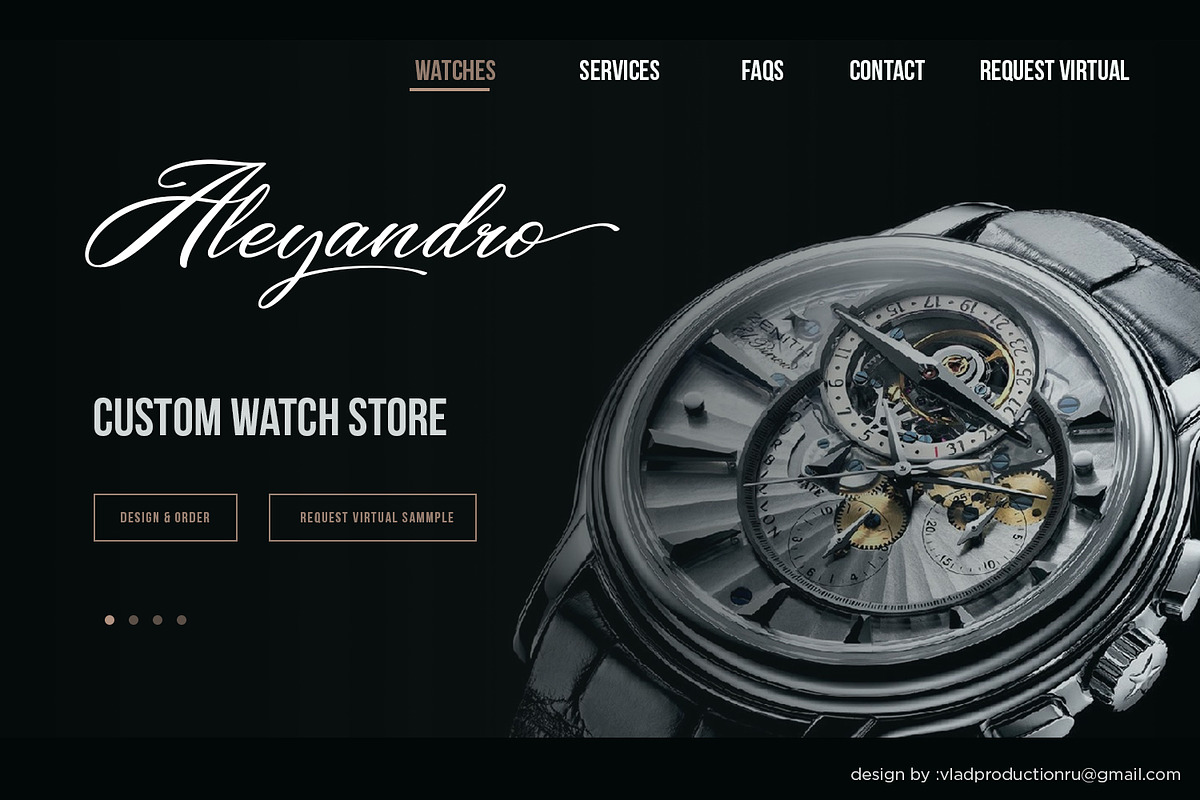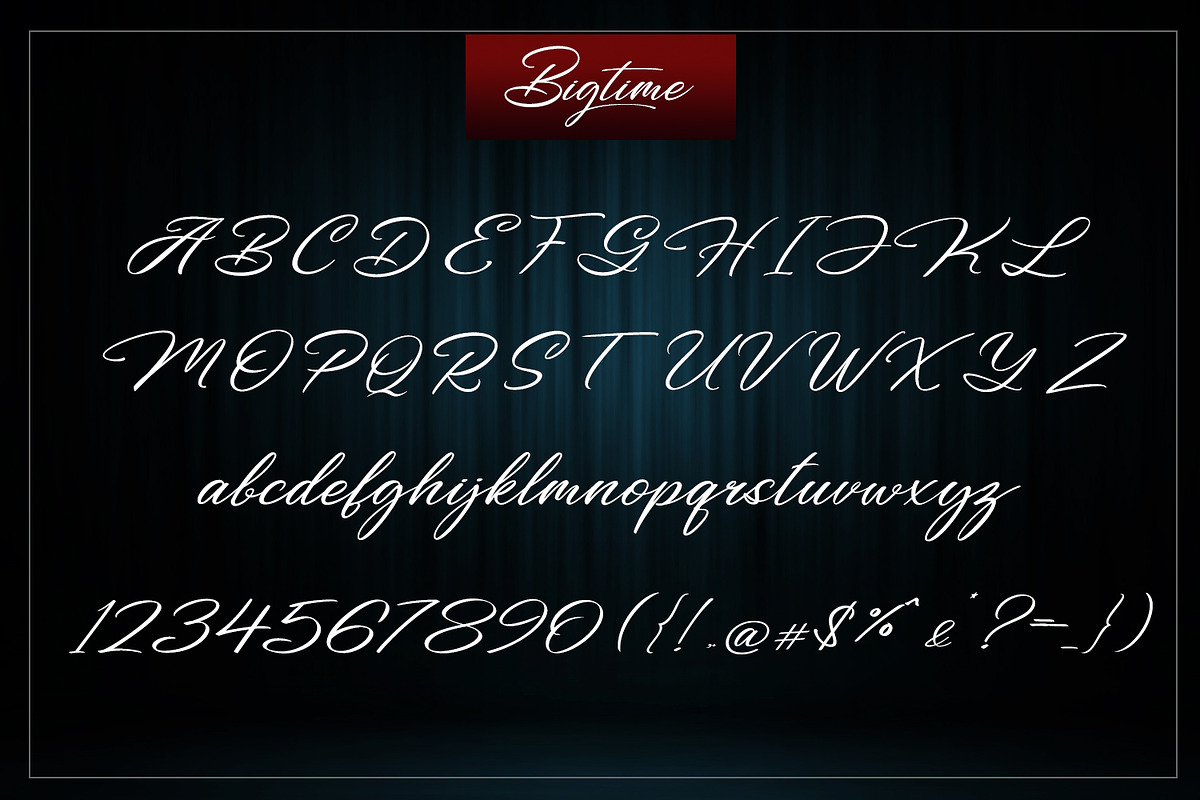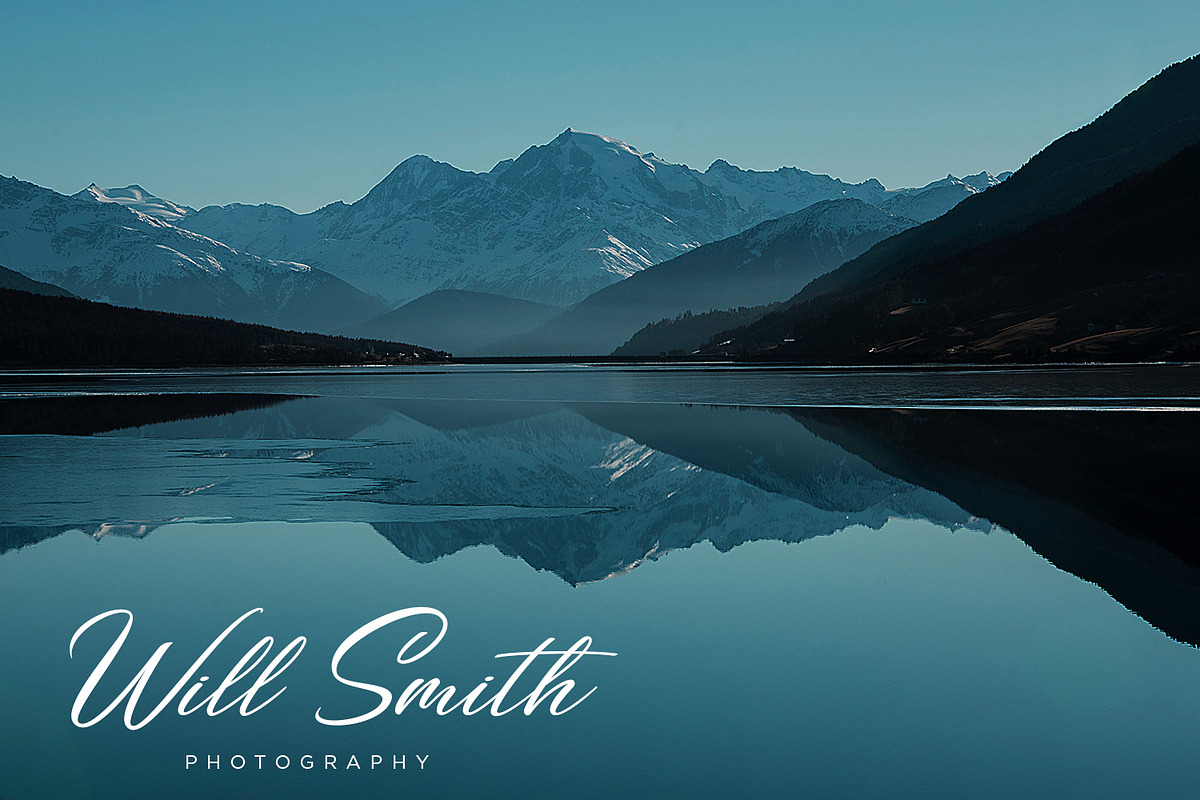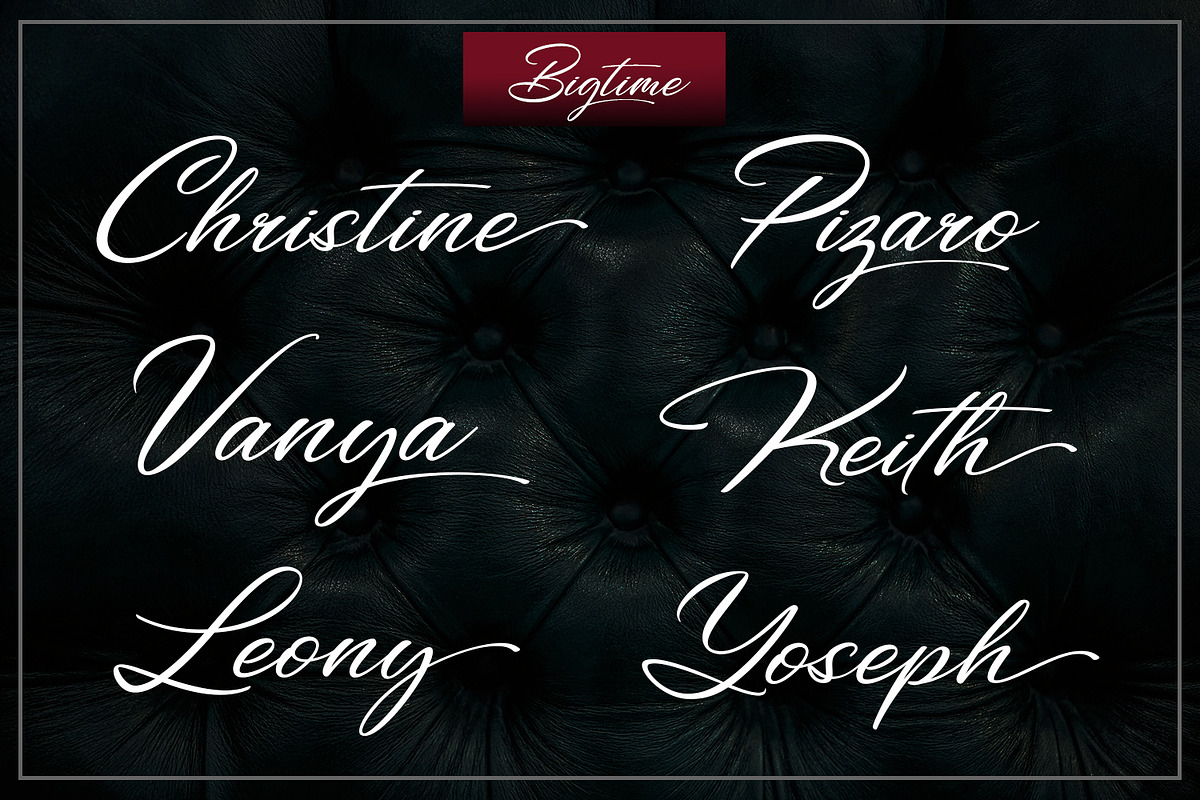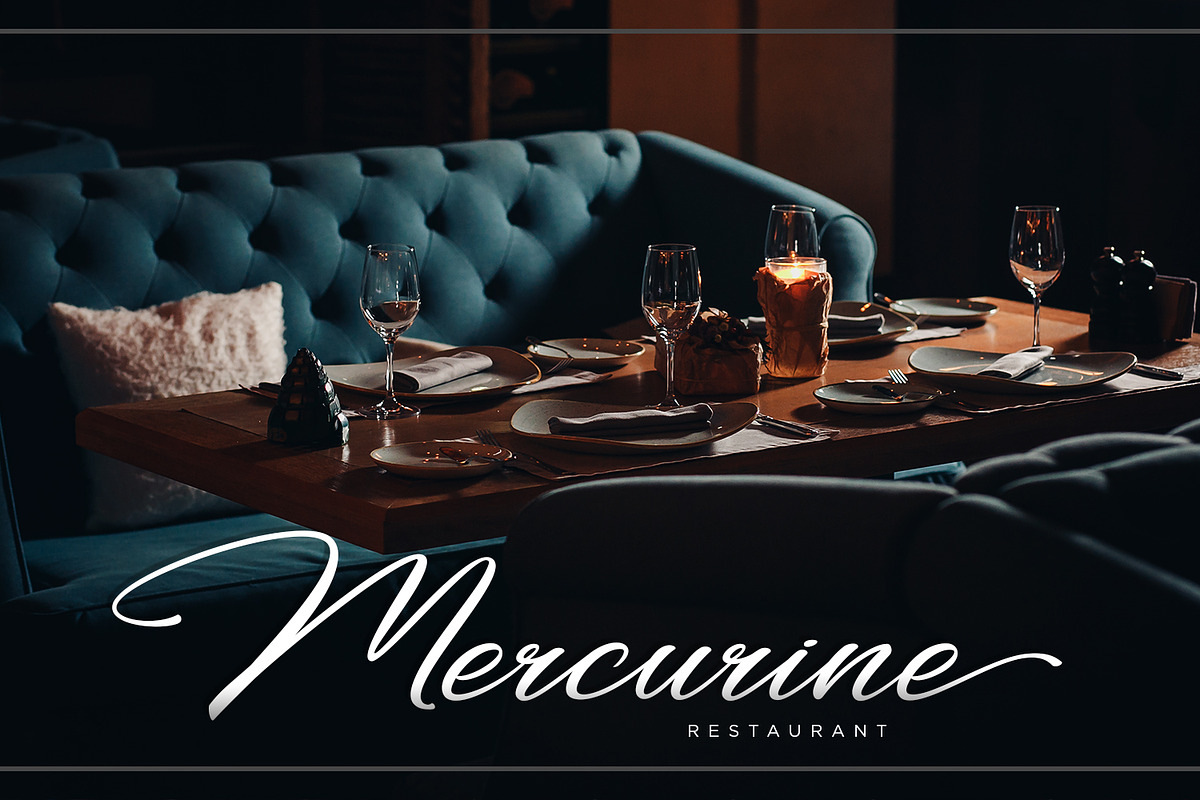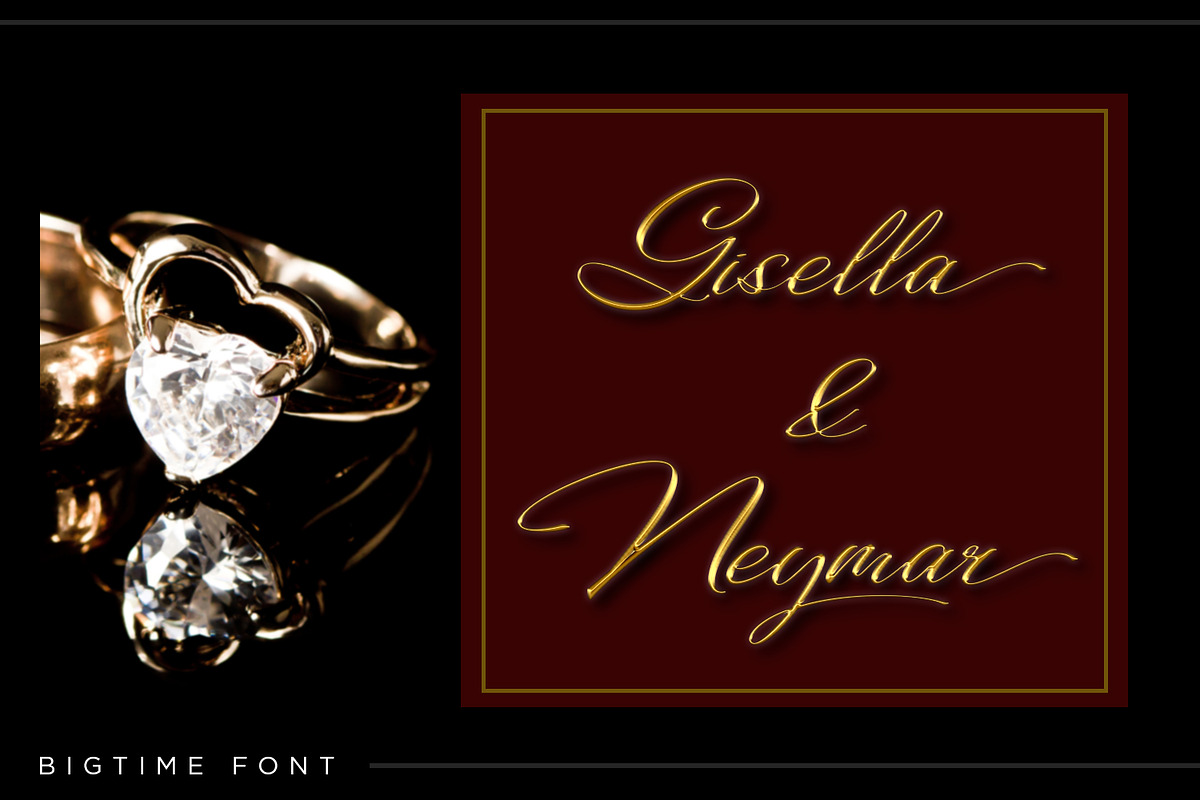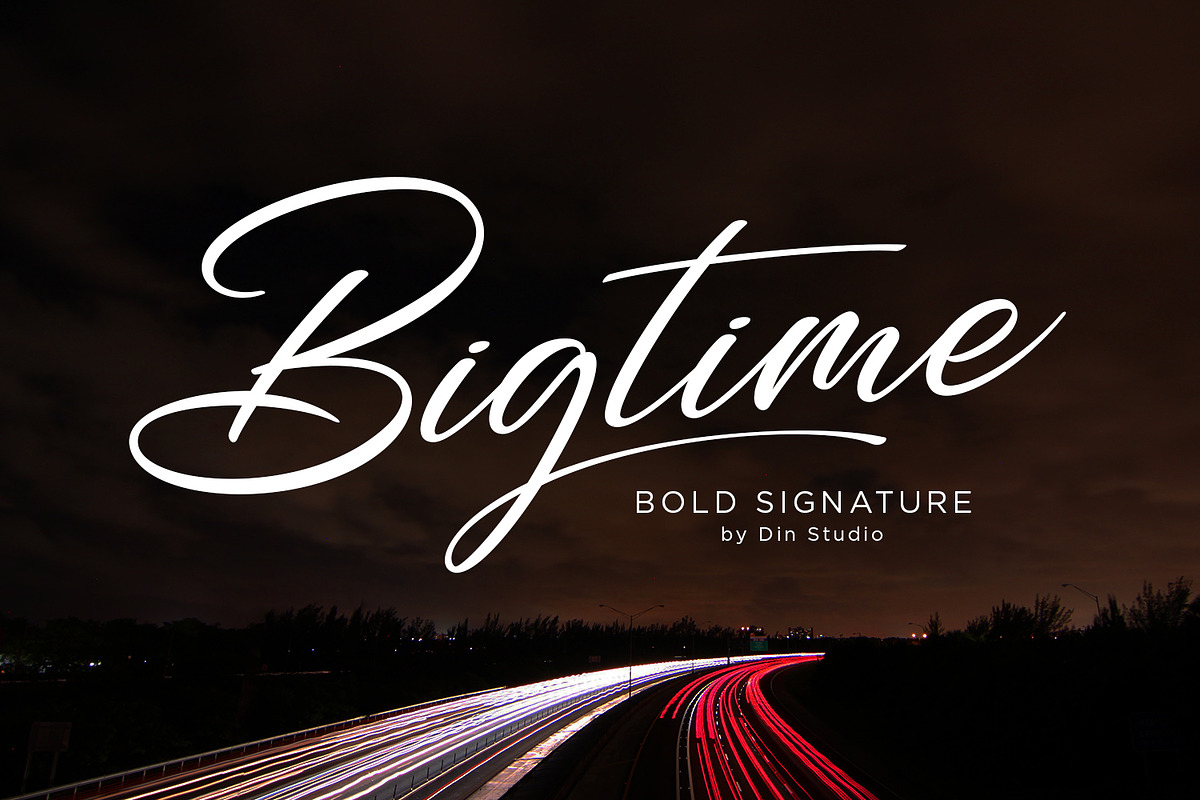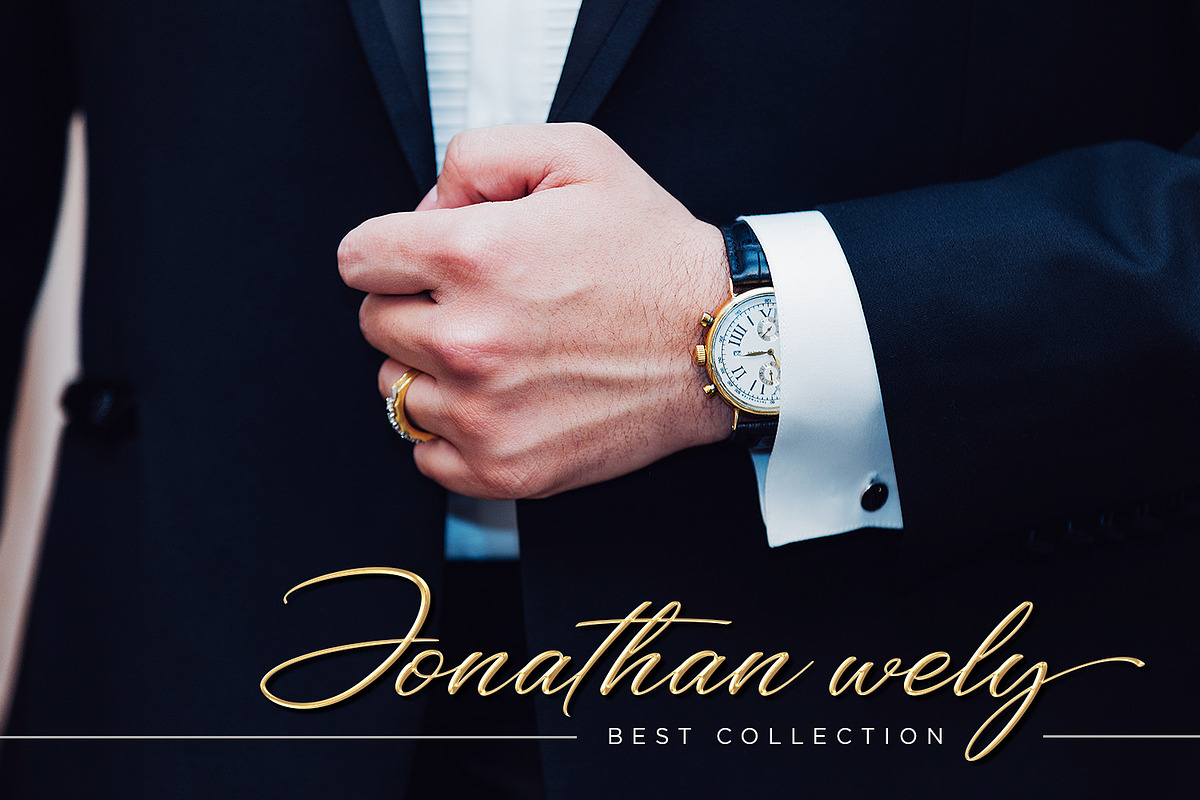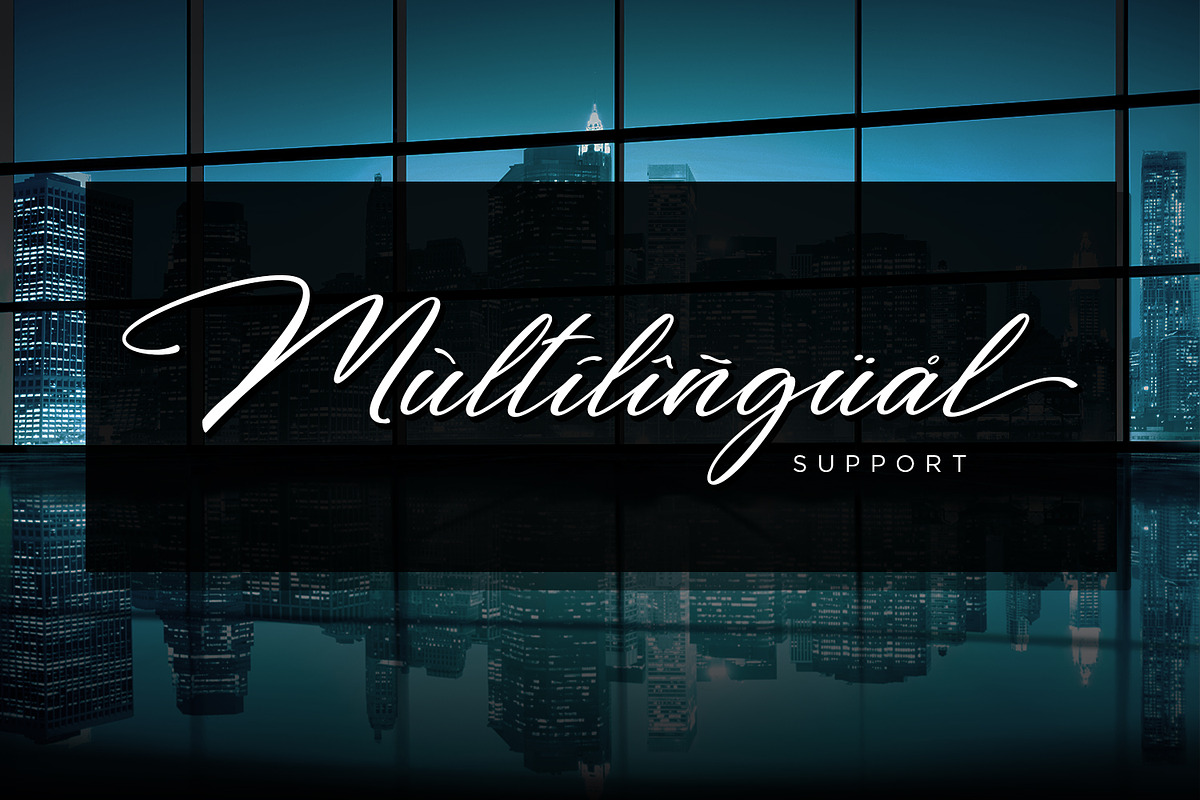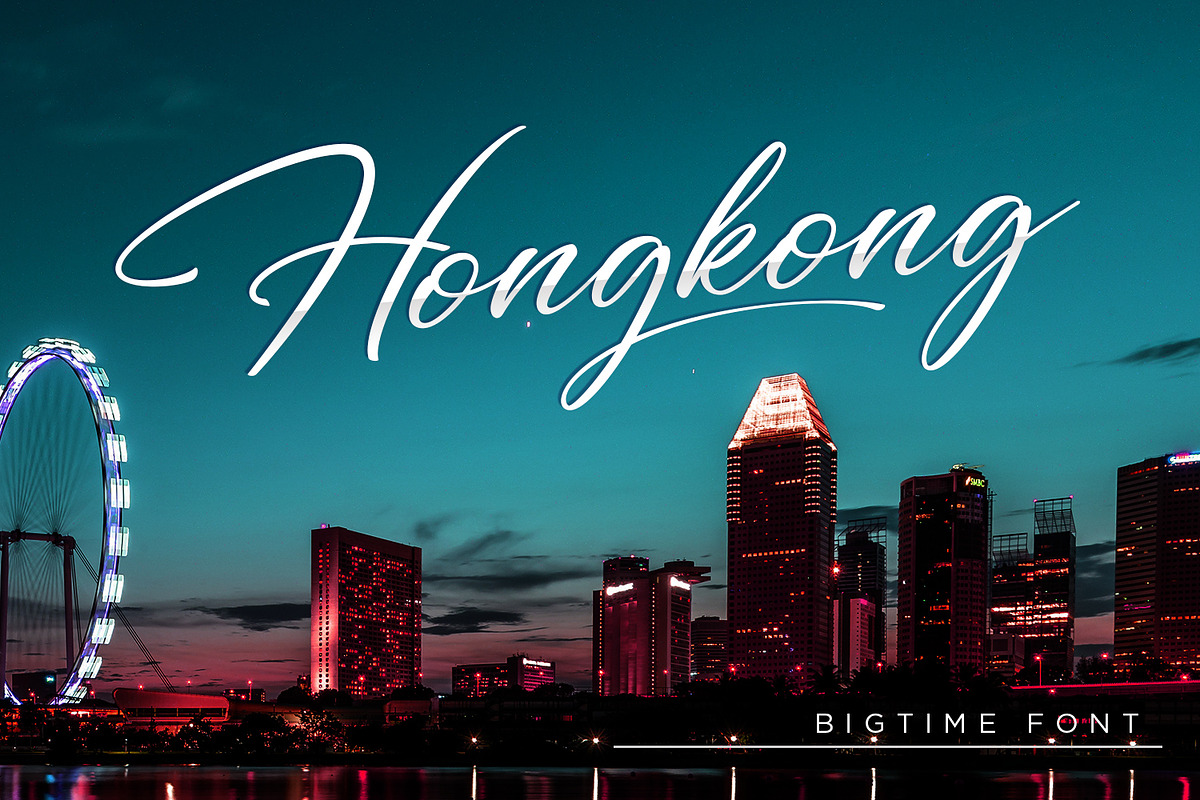
Bigtime Script - Bold Signature
Hello! Are you looking for a bold signature?
If so, Bigtime Script is the best choice. It presents with natural, modern and luxury style.
“Bold identity will give more value for your work”, so you will need this for your branding. It is suitable for various designs, such as posters, banners, logos, book covers, headings, printed products, merchandise, social media, and more. Find out more ways to use this font by taking a look at the font preview.
- Features:
- Swash Glyph (a-z)
- Alternate Glyph (g, j, y, z, r, t,)